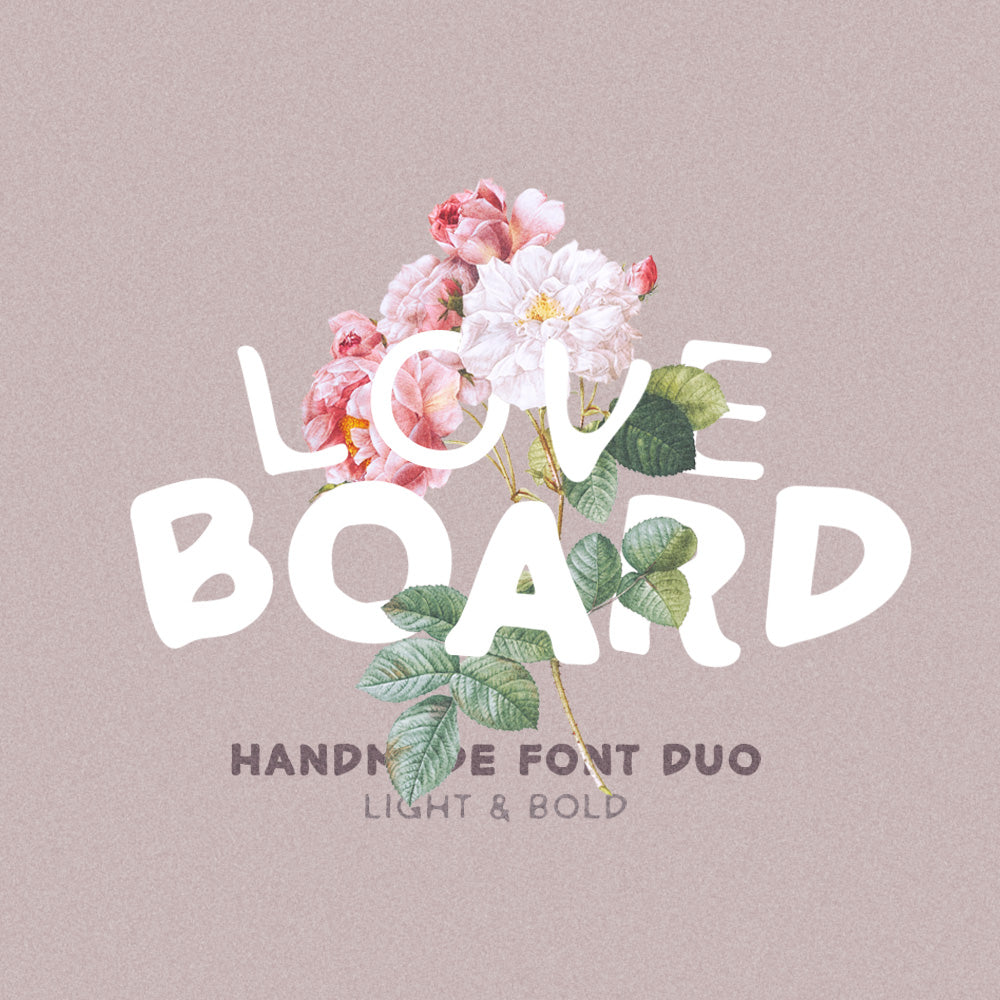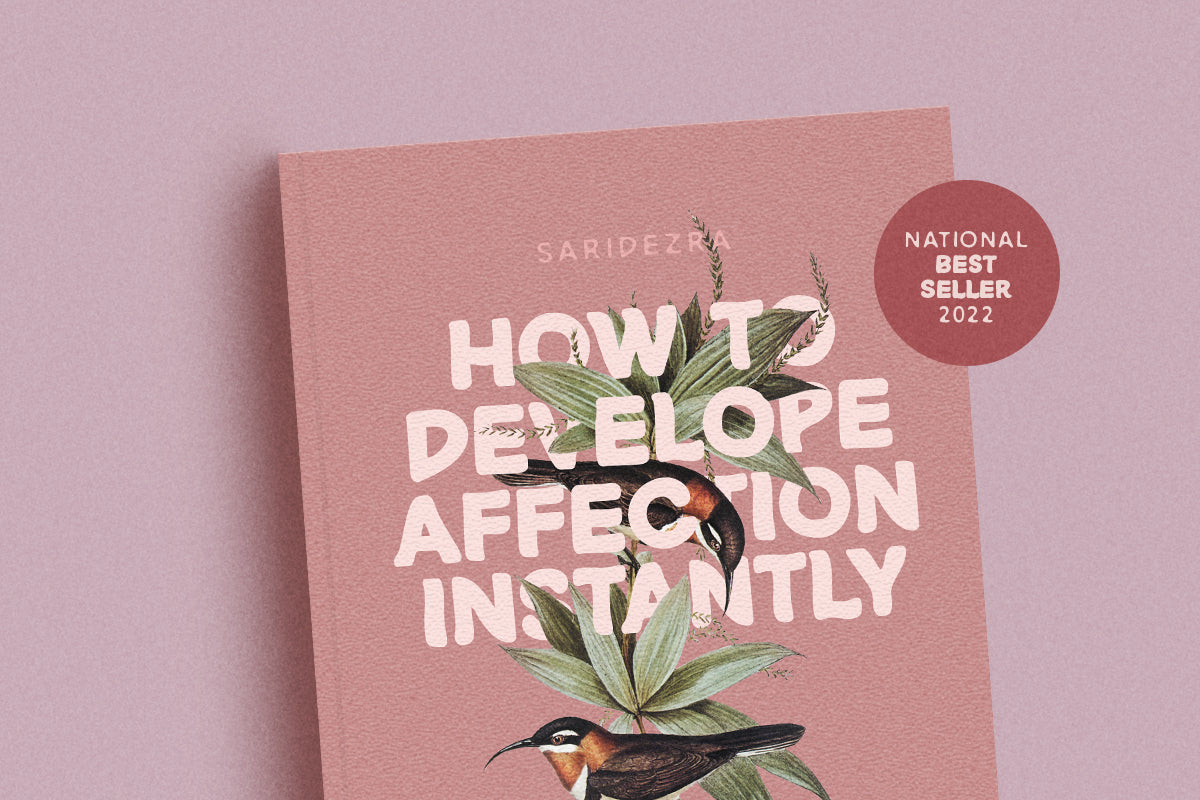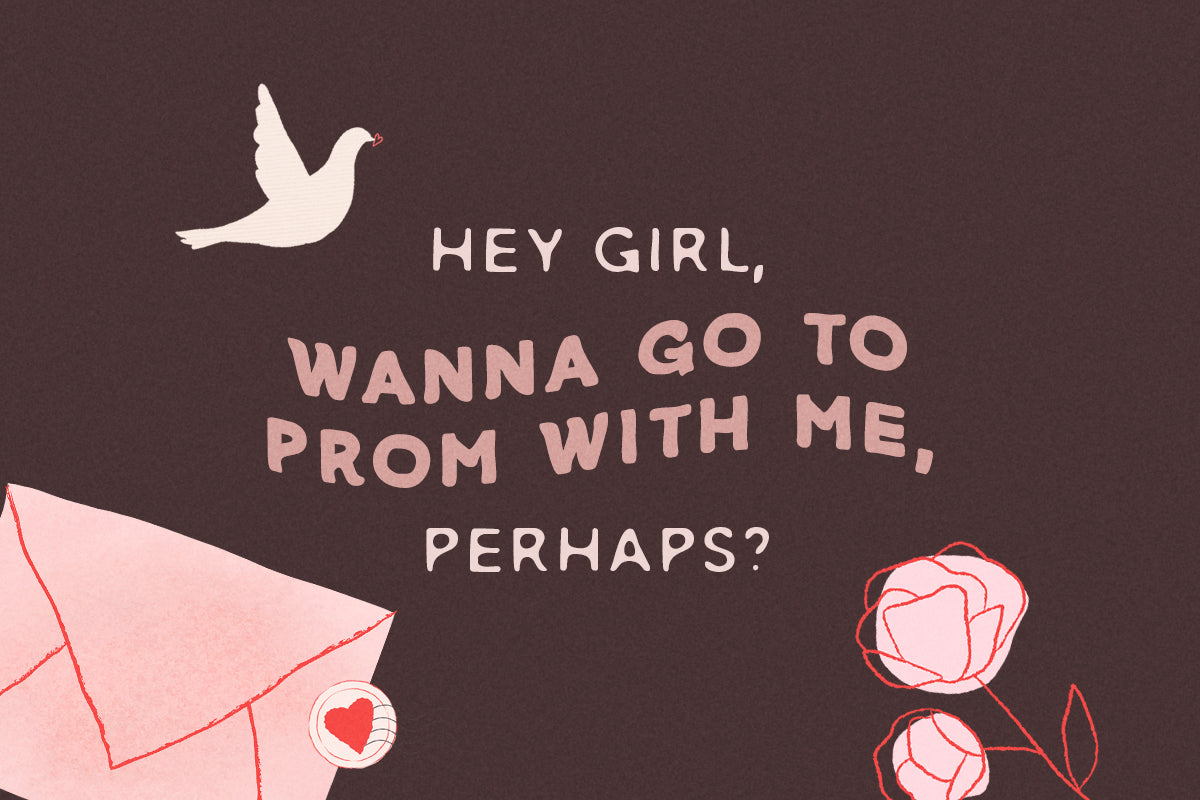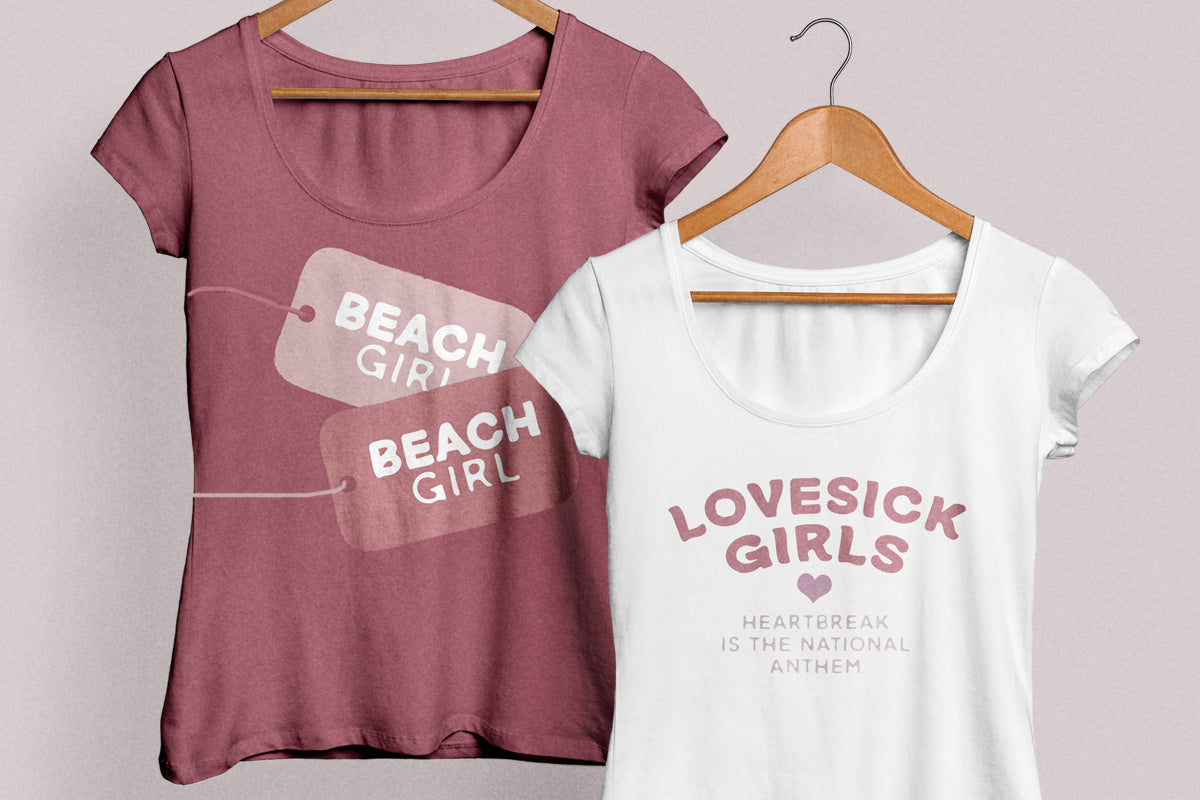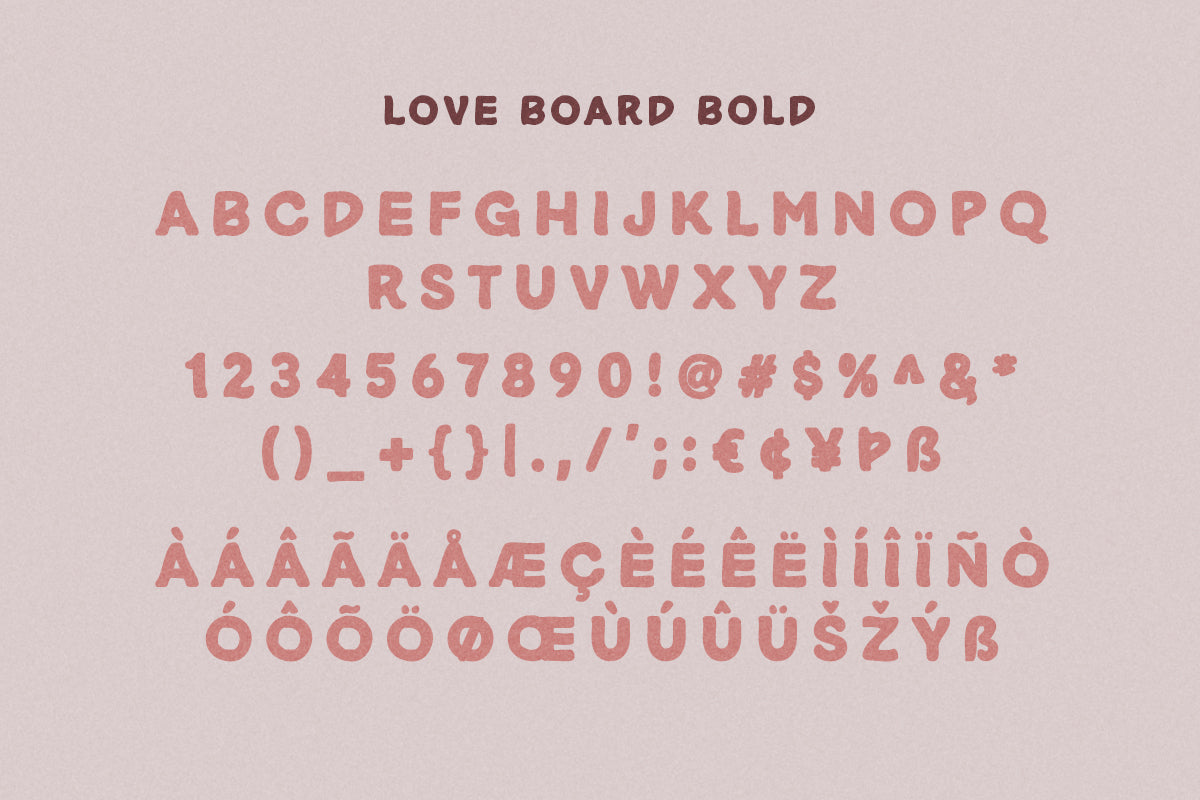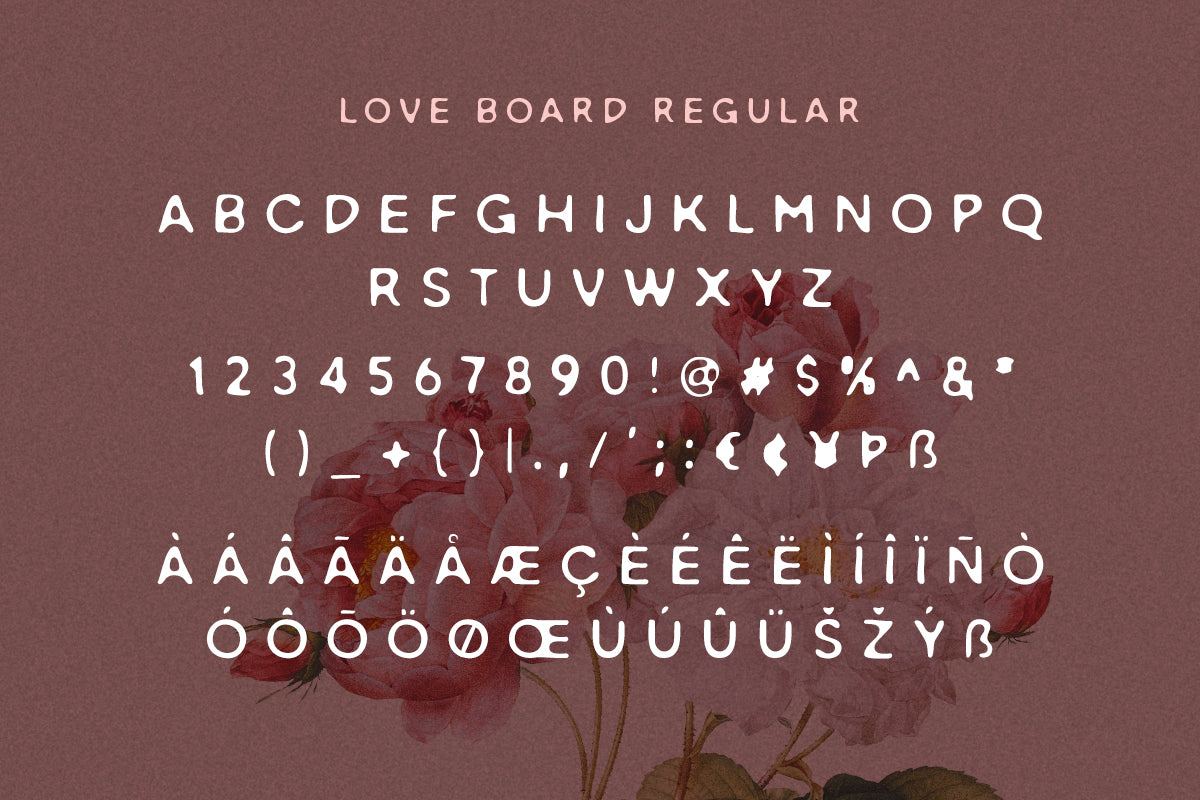
Love Board - Handmade Font
Love Board is a handmade sans serif font featuring a hand lettering style, available in two complementary weights. It supports multilingual characters and is suitable for a variety of design projects.